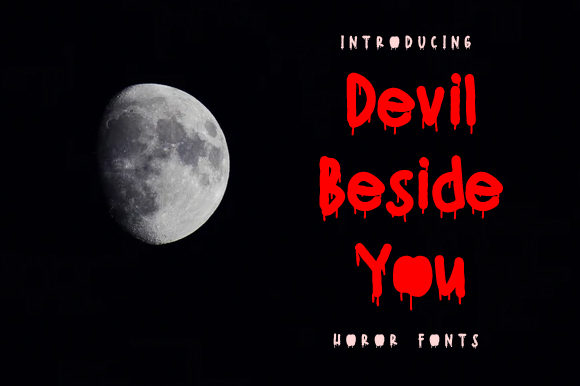
Unleash the Fear with Devil Beside You Font: A Spine-Chilling Display Font for Spooky Designs
The spookiest time of the year is just around the corner, and what better way to get into the Halloween spirit than with a font that’s sure to send chills down the spines of your audience? Look no further than the Devil Beside You font, a scary and dramatic display font designed to elevate your spooky designs and Halloween projects to the next level.
What is Devil Beside You Font?
Devil Beside You font is a carefully crafted display font that exudes a sense of eeriness and foreboding. Its unique design features twisted, gothic-inspired letters that seem to leap off the page, creating a sense of unease and tension. This font is perfect for designers looking to add a touch of macabre to their work, whether it’s for a Halloween-themed project, a horror movie poster, or simply to add some edge to a design.
Key Features of Devil Beside You Font
- Scary and Dramatic Design: The Devil Beside You font boasts a bold, eye-catching design that’s sure to grab attention.
- Spooky and Eerie: The twisted, gothic-inspired letters evoke a sense of fear and unease, perfect for Halloween-themed projects.
- High-Quality Design: The font is carefully crafted with attention to detail, ensuring a crisp and clean design.
Why Choose Devil Beside You Font?
With so many fonts available, why choose Devil Beside You for your spooky designs? Here are just a few reasons:
- Unique Design: The Devil Beside You font stands out from the crowd with its bold, twisted design that’s sure to grab attention.
- Versatility: This font can be used for a wide range of projects, from Halloween-themed designs to horror movie posters and more.
- Time-Saving: With the Devil Beside You font, you can quickly and easily add a spooky touch to your designs, saving you time and effort.
How to Use Devil Beside You Font
Using the Devil Beside You font is easy! Here are a few tips to get you started:
- Pair with Other Fonts: Combine the Devil Beside You font with other fonts to create a unique and eye-catching design.
- Experiment with Colors: Try out different colors and textures to add depth and interest to your design.
- Play with Size and Orientation: Experiment with different sizes and orientations to create a bold and dramatic design.
Perfect for Halloween Projects
The Devil Beside You font is perfect for a wide range of Halloween projects, including:
- Halloween Party Invitations: Create spooky and eye-catching invitations that set the tone for a howling good time.
- Halloween Movie Posters: Add a touch of horror to your movie posters with the Devil Beside You font.
- Halloween-Themed Social Media Graphics: Create spooky and engaging social media graphics that are sure to grab attention.
Tips and Tricks for Using Devil Beside You Font
Here are a few tips and tricks to help you get the most out of the Devil Beside You font:
- Use it Sparingly: The Devil Beside You font is bold and eye-catching, so use it sparingly to avoid overwhelming your design.
- Balance with Other Elements: Balance the font with other design elements, such as images and textures, to create a cohesive design.
- Experiment and Have Fun: Don’t be afraid to experiment and try new things – it’s all part of the design process!
| Font Name | Devil Beside You Font |
| Author | Ciriative |